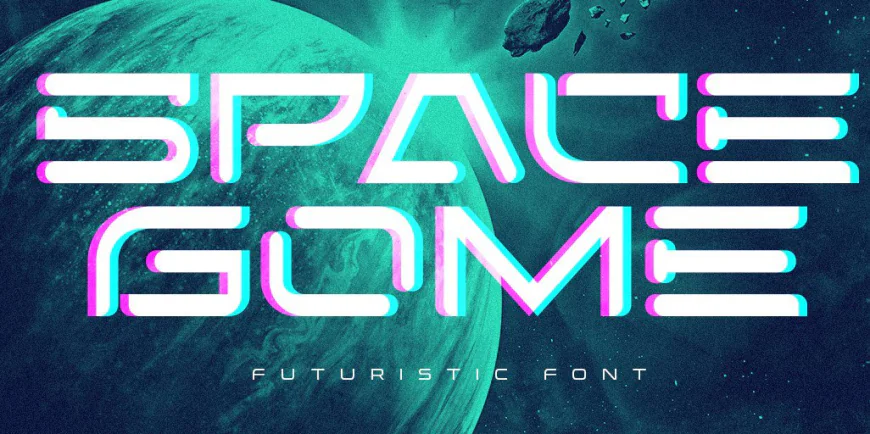
Space Gome Font is a sleek, futuristic typeface with smooth, rounded edges, adding a modern and elegant touch to your designs. With its unique character set, this font ensures your projects stand out with a bold, futuristic appeal.